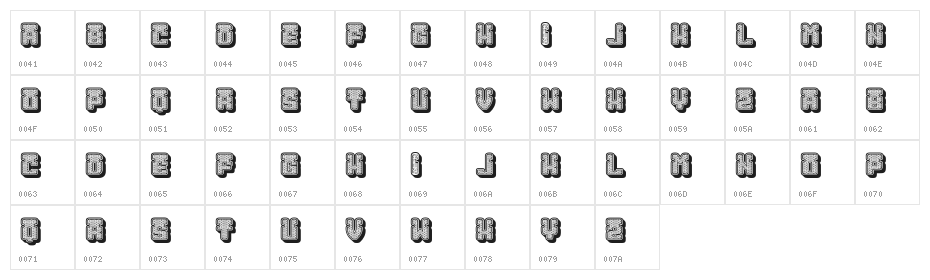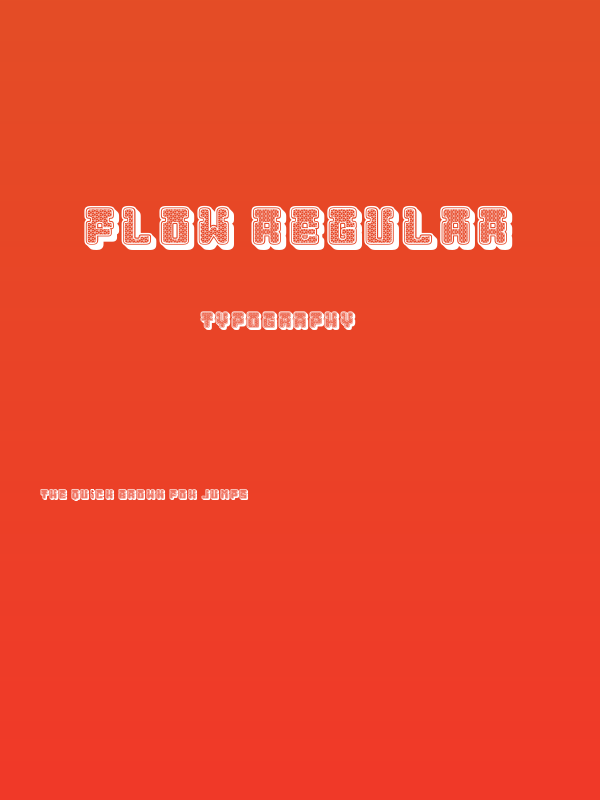
Flow Regular Font
Flow Regular Description
This font features a bold and playful design with a unique textured pattern inside each character. The letters are outlined with a thick black border, giving them a distinct and eye-catching appearance. The interior pattern resembles a series of dots and lines, adding a whimsical and decorative touch. The overall style is reminiscent of retro or comic book aesthetics, making it suitable for projects that require a fun and engaging visual element. The characters are uniformly spaced, ensuring readability while maintaining their decorative appeal.
| Overall Style | Retro, Comic |
| Proposed Projects | Ideal for children's book covers, comic strips, playful branding, and event posters. |